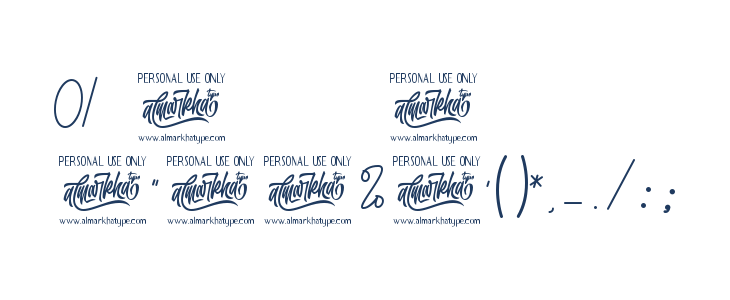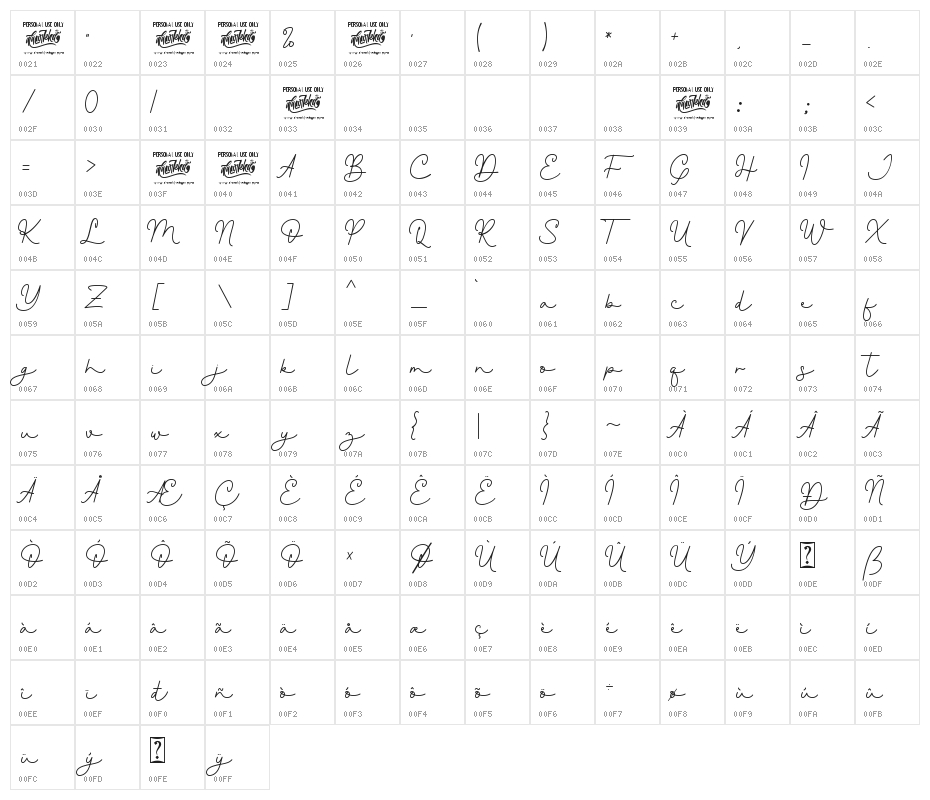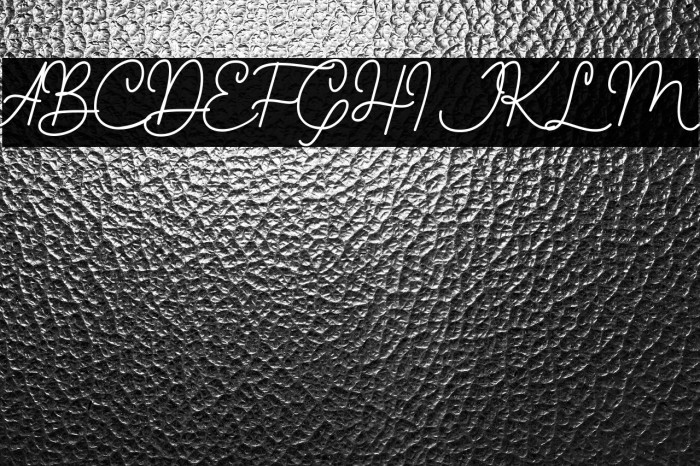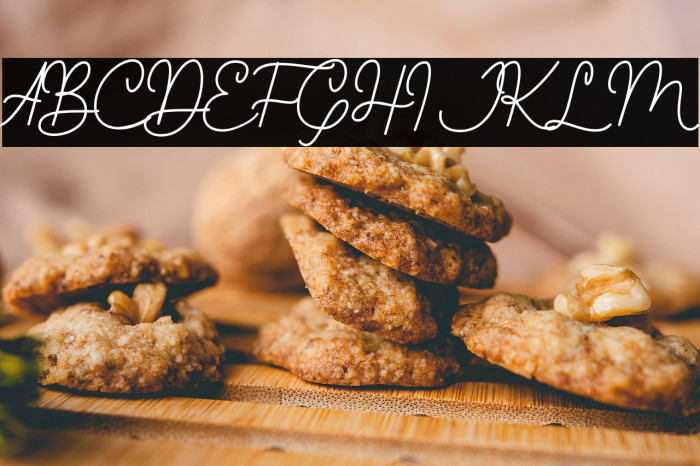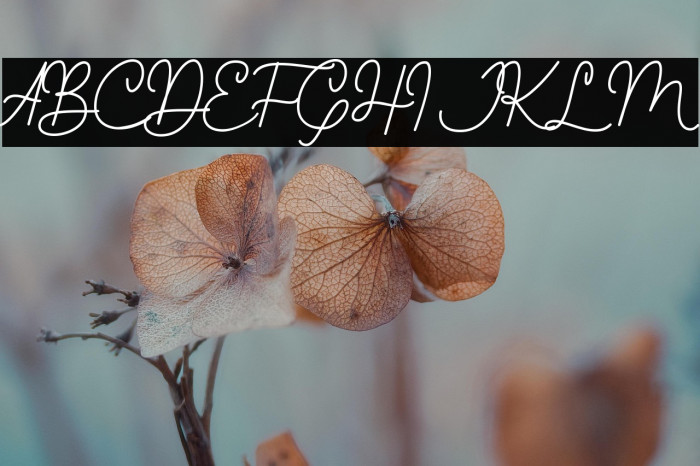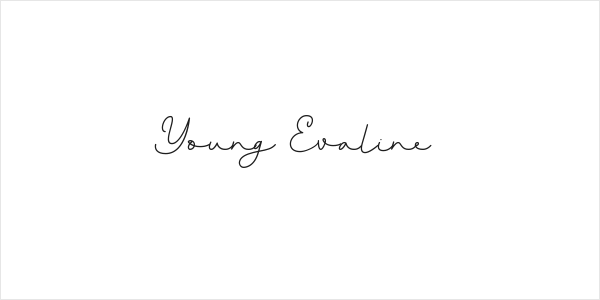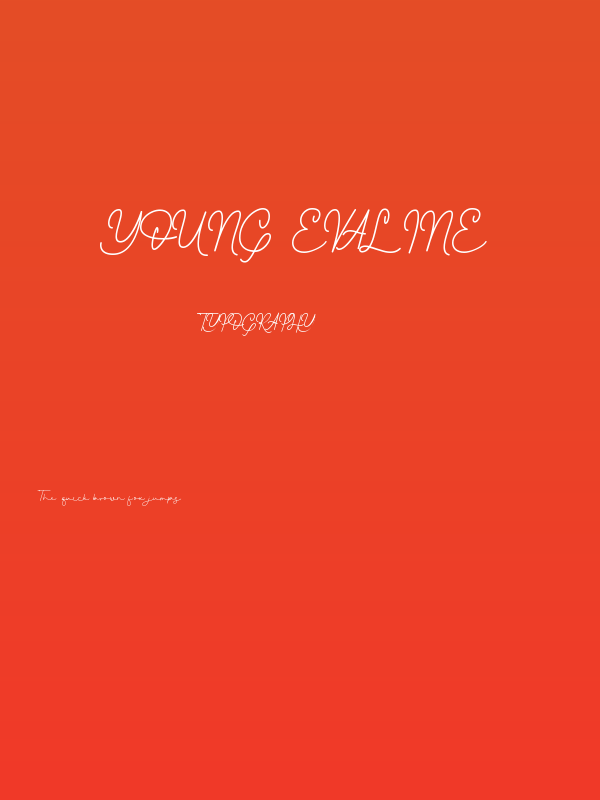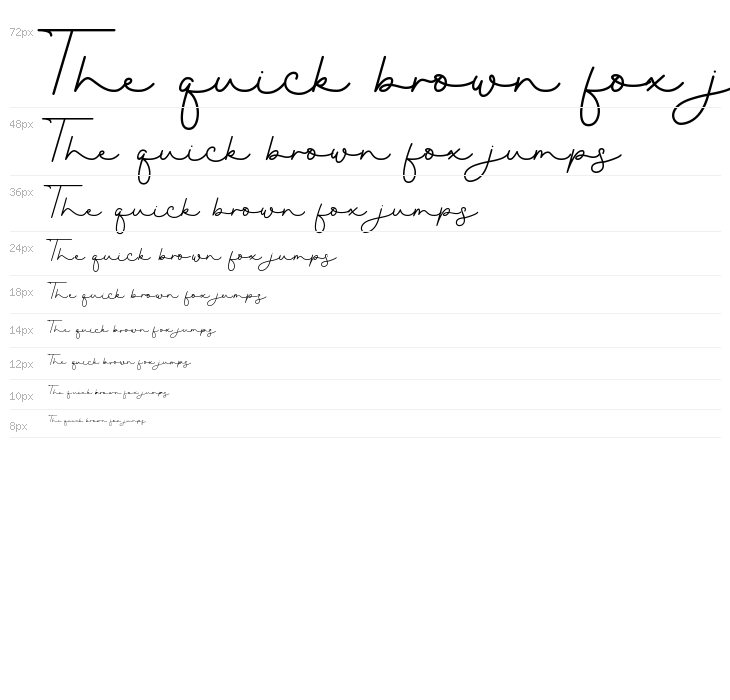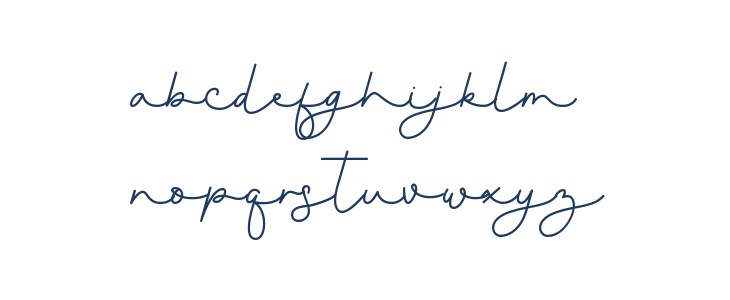
Young Evaline Font
Young Evaline Description
This font features an elegant and flowing script style, characterized by its smooth, cursive letterforms. The uppercase letters exhibit a graceful, sweeping motion with consistent loops and curves, while the lowercase letters maintain a more subtle, connected appearance. The numerals and special characters complement the overall aesthetic with their fluid and cohesive design. This font exudes a sense of sophistication and charm, making it ideal for projects that require a personal or artistic touch. The consistent stroke width and balanced character spacing enhance its readability and visual appeal.